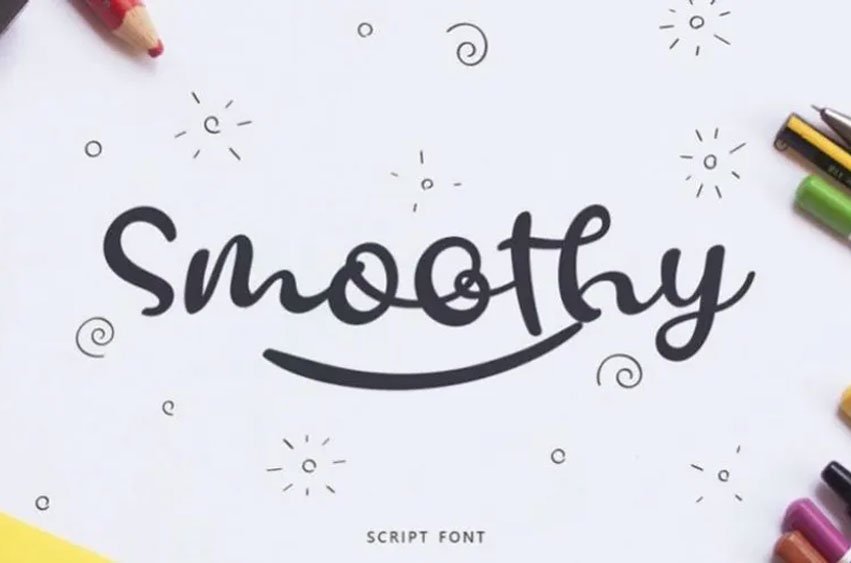
Smoothy Script Font
Smoothy Script Font is a sweet and bold script font. Digital brush was the tool, which Smoothy was created with, it has smooth edge, and it is very suitable for almost all design projects.